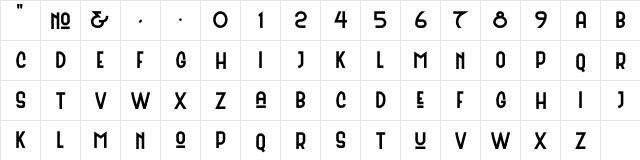
Batavia Sans Clean Regular
| Foundry | Monocotype Studio |
| Designer | Abdurrahman Hanif |
Design Context for Batavia Sans Clean Typeface
Batavia Sans Clean is a composed and adaptable typeface that performs quietly and consistently across a wide range of design contexts.